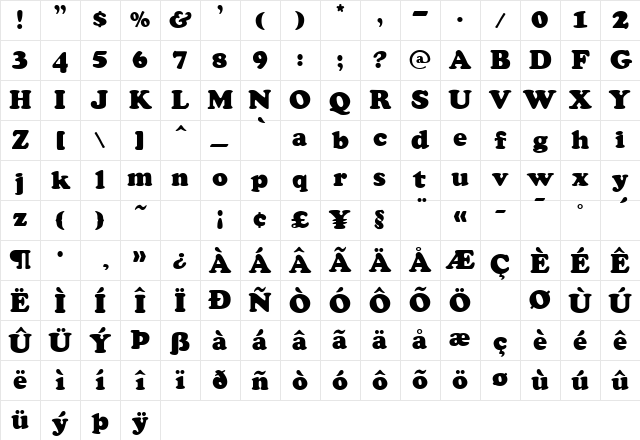
Coolsville Regular Free Font
Coolsville Regular
Coolsville Family
Design Context for Coolsville
Coolsville is a composed and adaptable typeface that performs quietly and consistently across a wide range of design contexts.